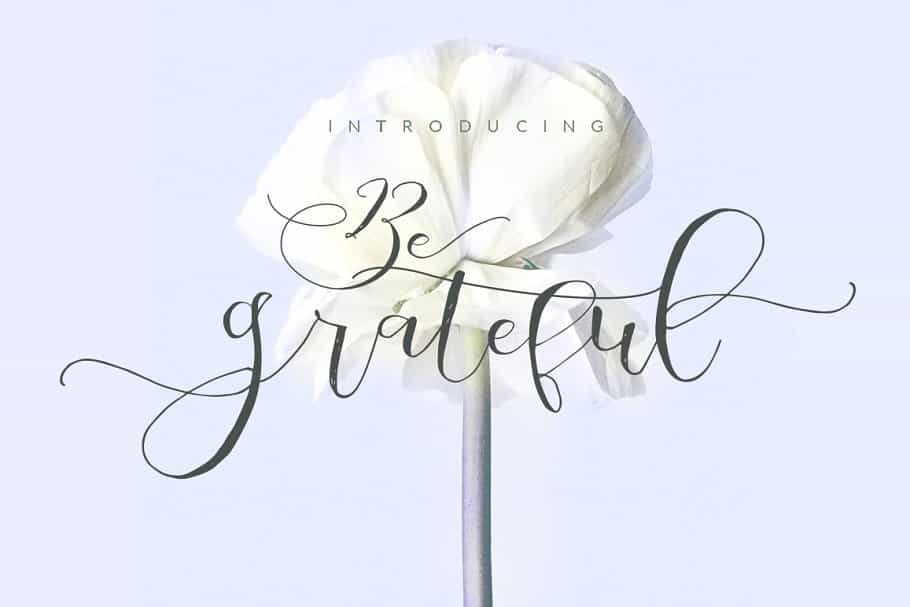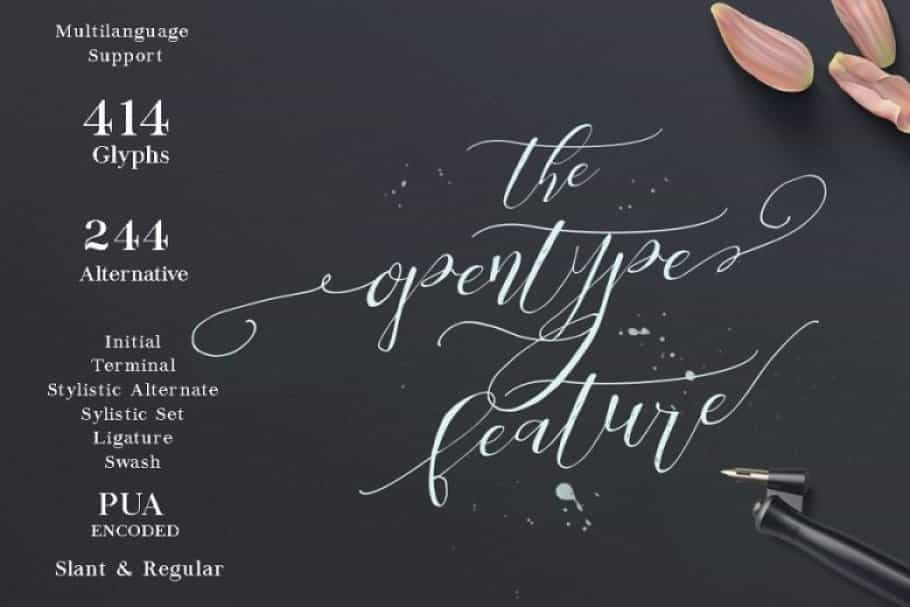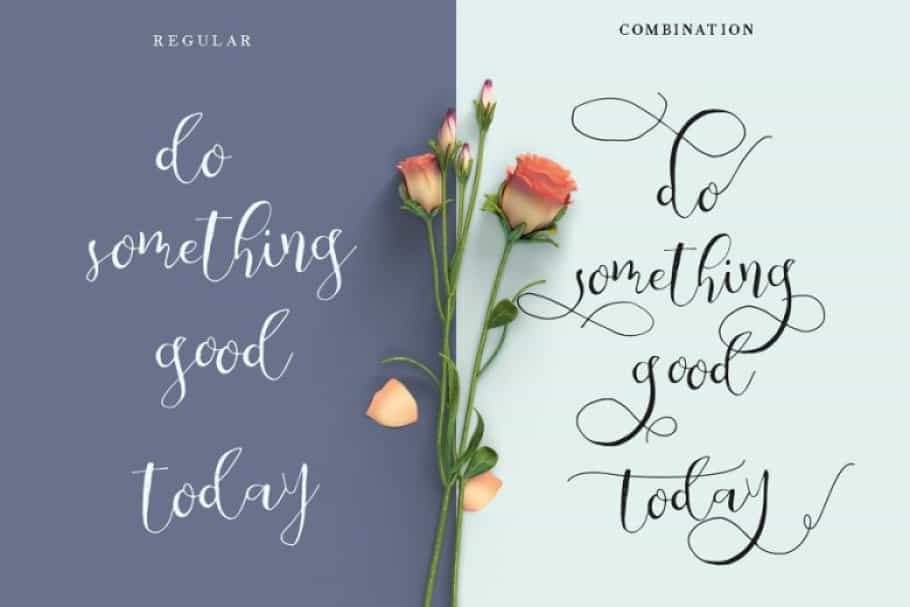
Introducing Be Grateful Script, is a calligraphy wavy modern and classic, perfect for your next design, such as logos, wedding, printed quotes, invitations, cards, product packaging, headers and anything else about your imagination. Be Grateful Script allows you to create custom dynamic text. you can access by turning on; Stylistic Set, Stylistic alternate, ligature, unique ligature, Initial and terminal as well as in Photoshop, Adobe Illustrator, Adobe InDesign or through a panel of glyphs such as Adobe Illustrator, Photoshop CC, Let’s switch from the regular character into character alternative to get the text with the layout of your dreams.